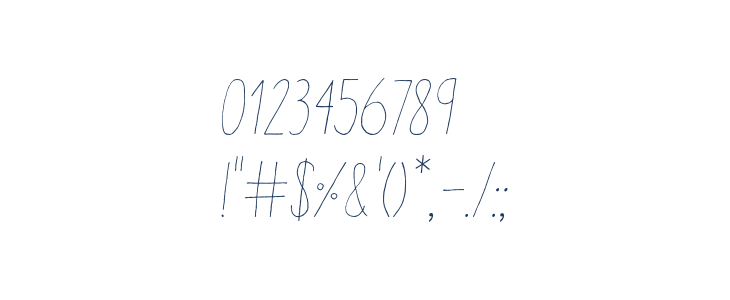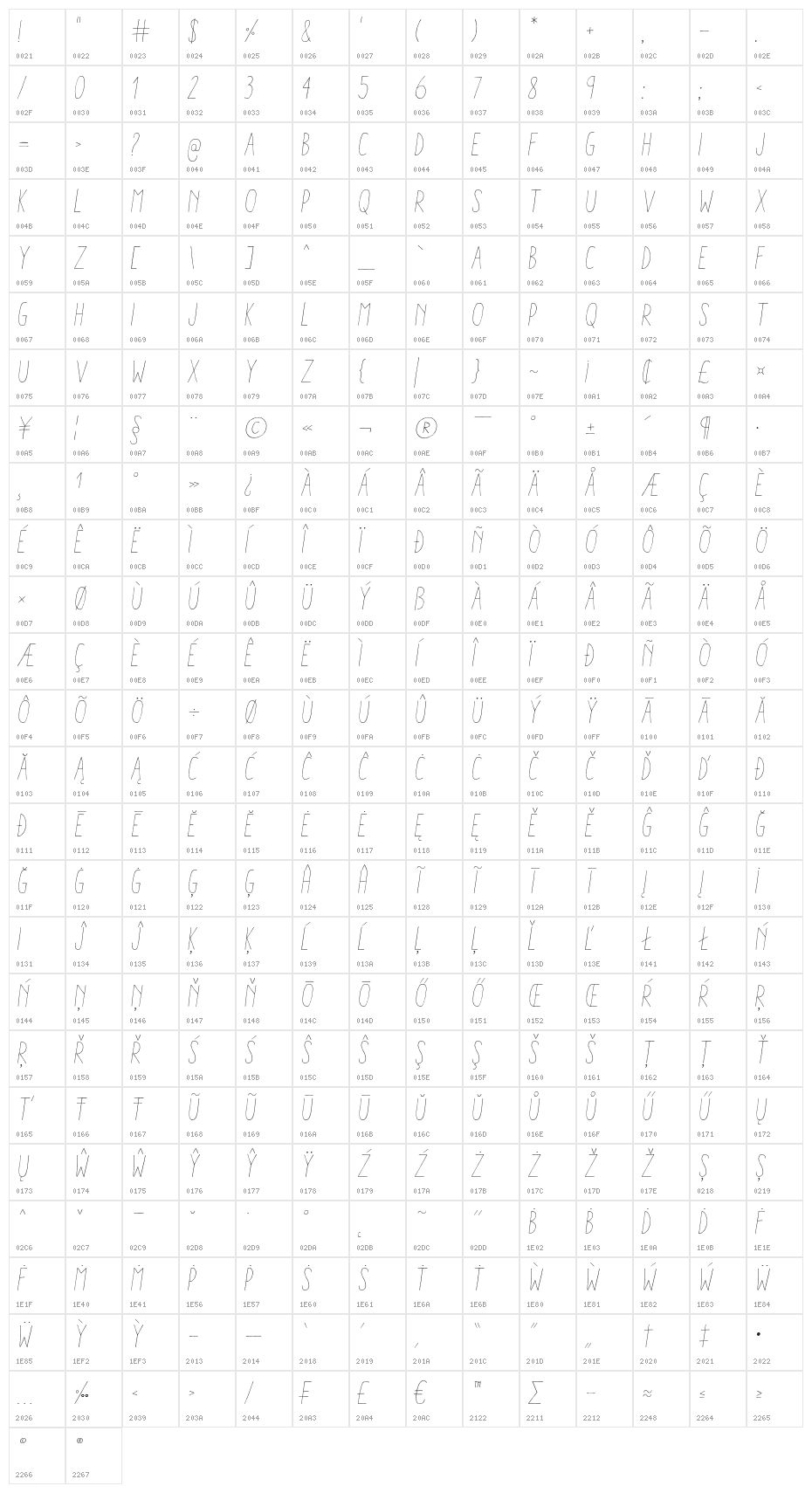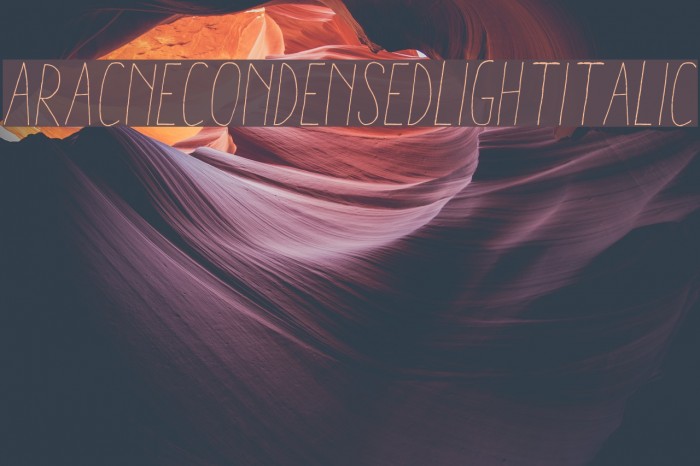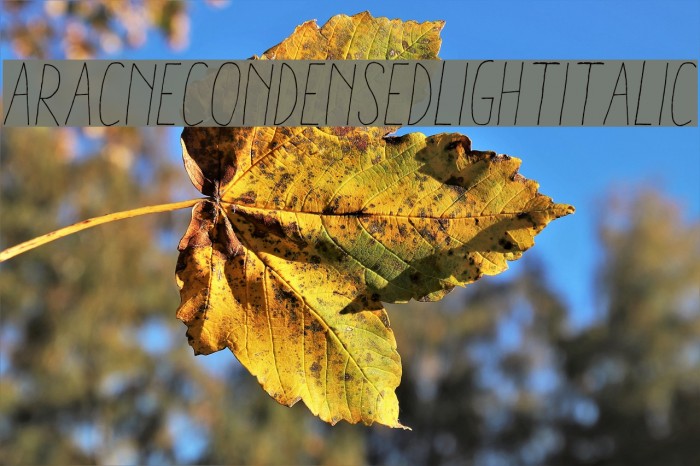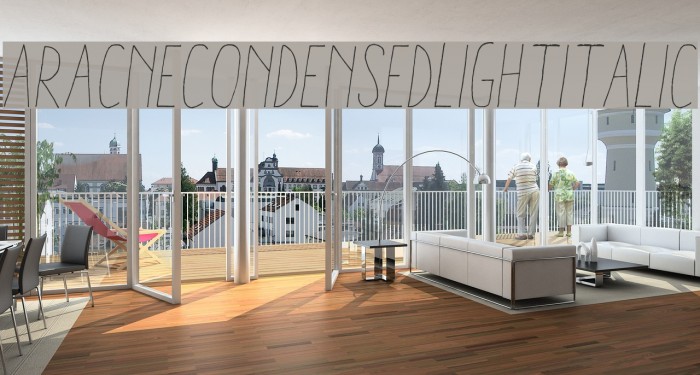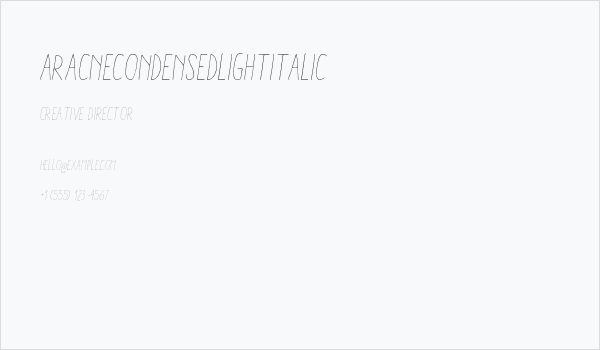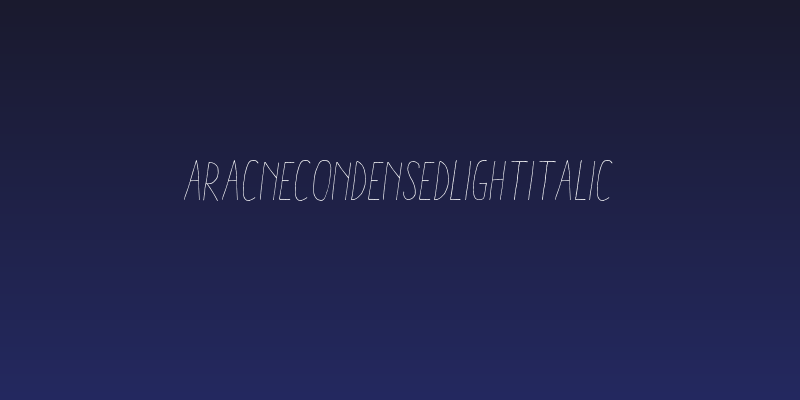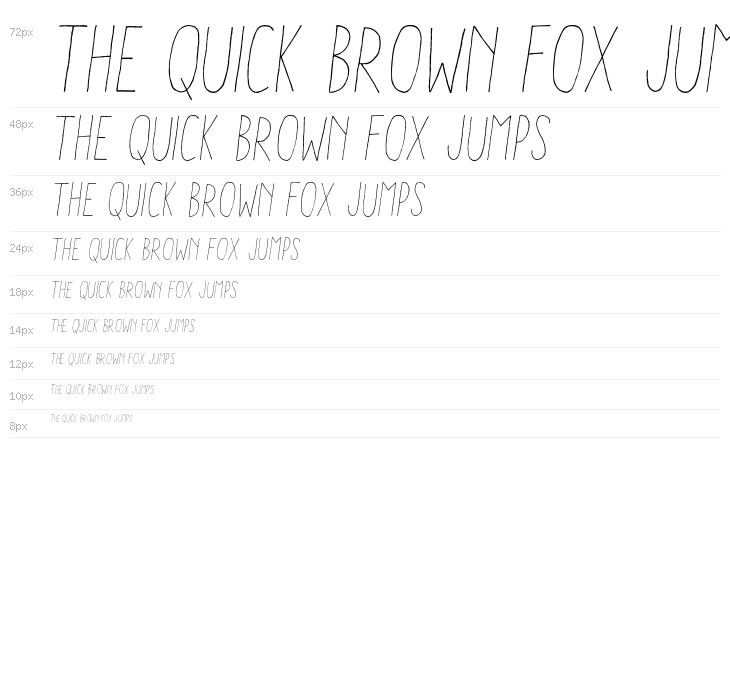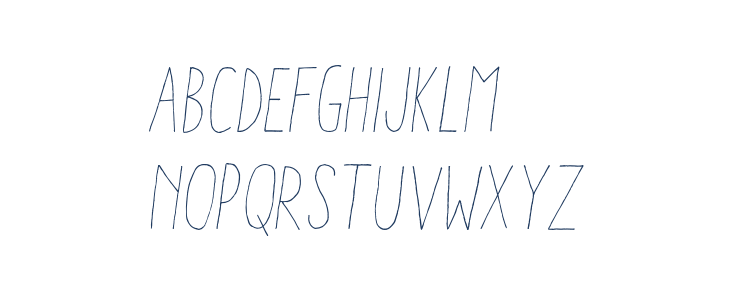
AracneCondensedLightItalic Font
AracneCondensedLightItalic Description
This font features a delicate and slender design, characterized by its condensed and italicized form. The letters are elongated with a slight slant, giving it a graceful and elegant appearance. The strokes are consistently thin, contributing to a light and airy feel. The overall design is minimalistic, with a modern touch that maintains readability despite its narrow structure. The numerals and special characters follow the same stylistic cues, ensuring uniformity across all glyphs. This font is particularly suitable for projects that require a sophisticated and understated aesthetic.
| Proposed Projects | Ideal for fashion magazines, elegant invitations, minimalist branding, and modern editorial layouts. |